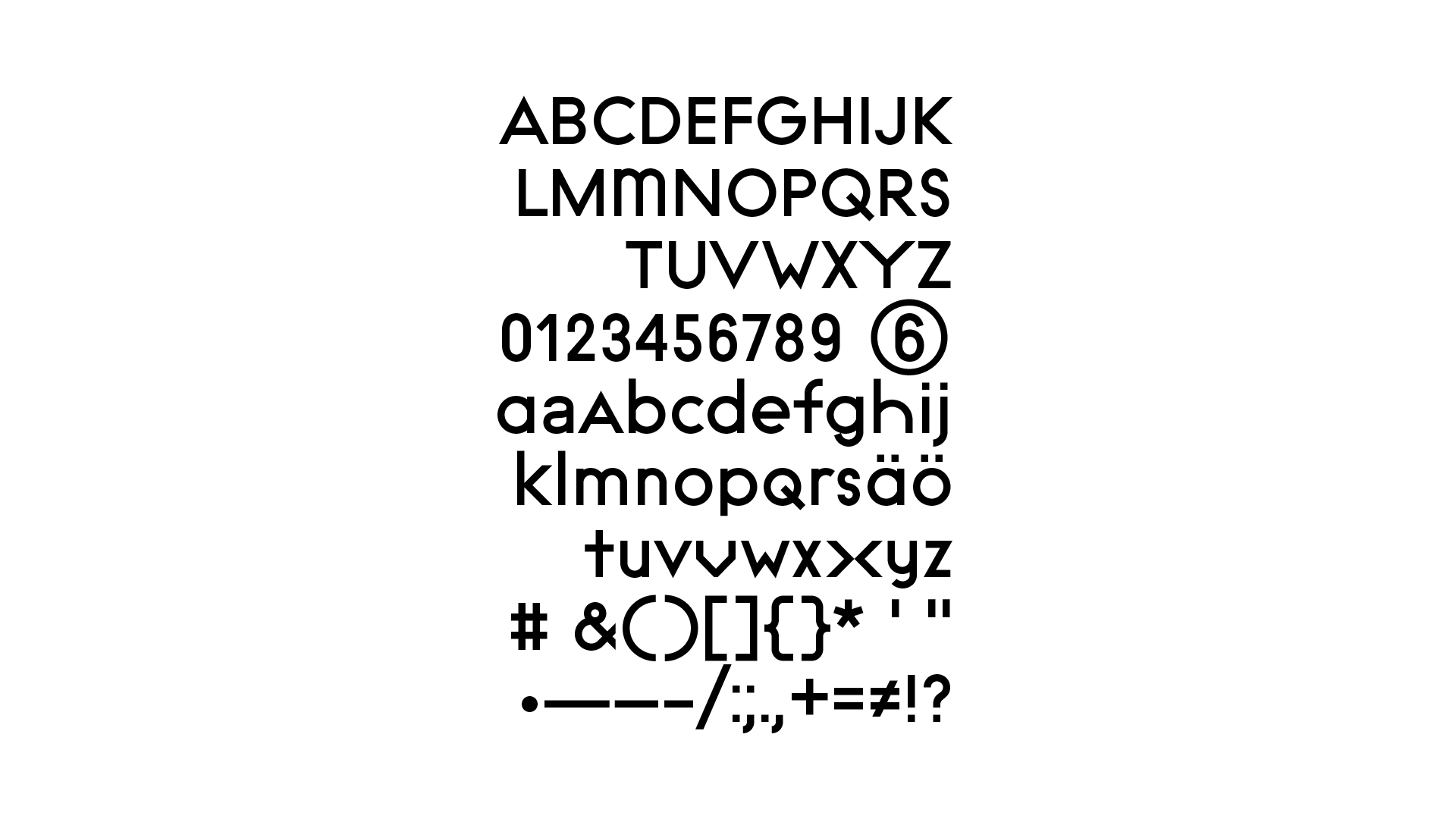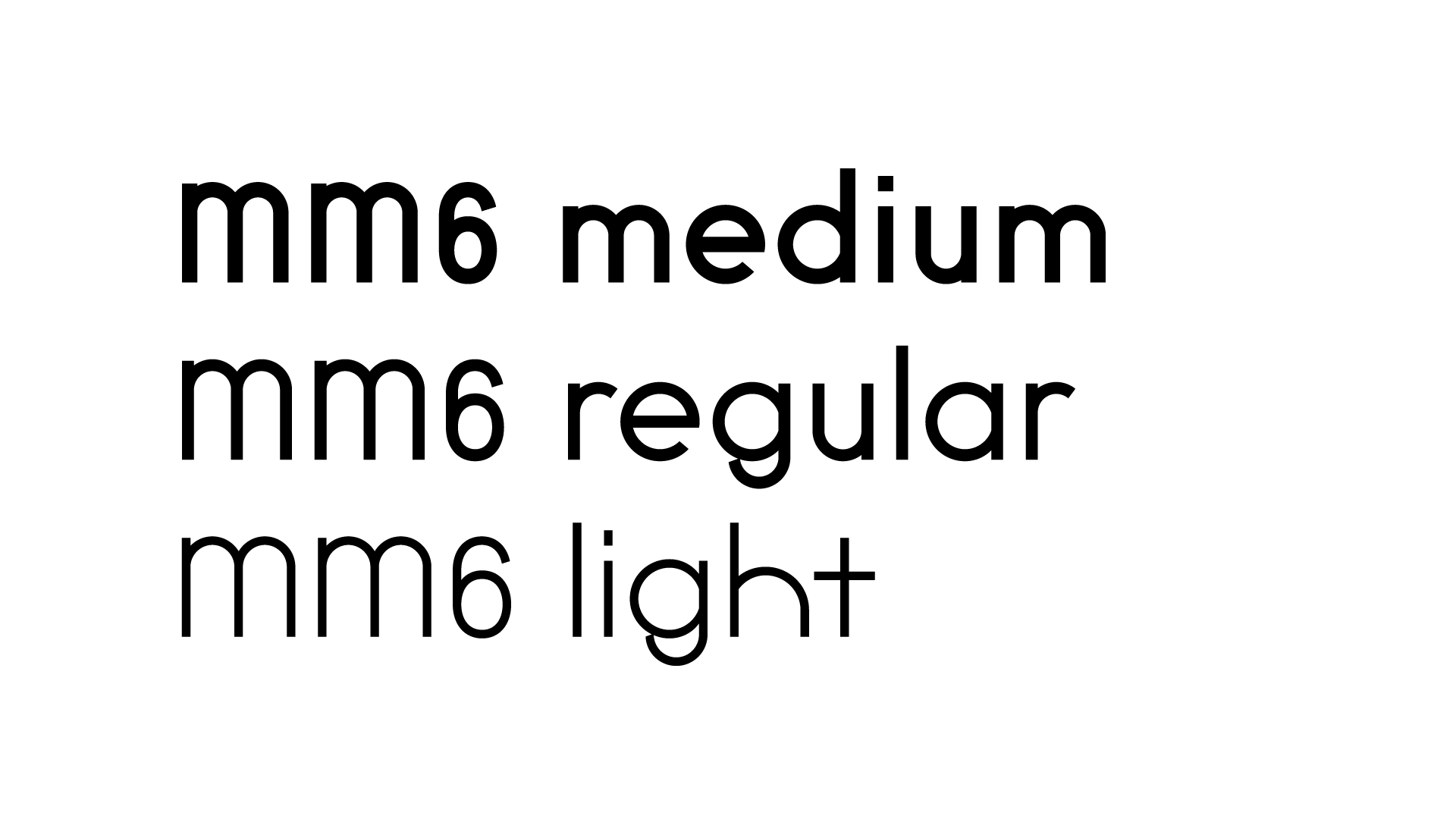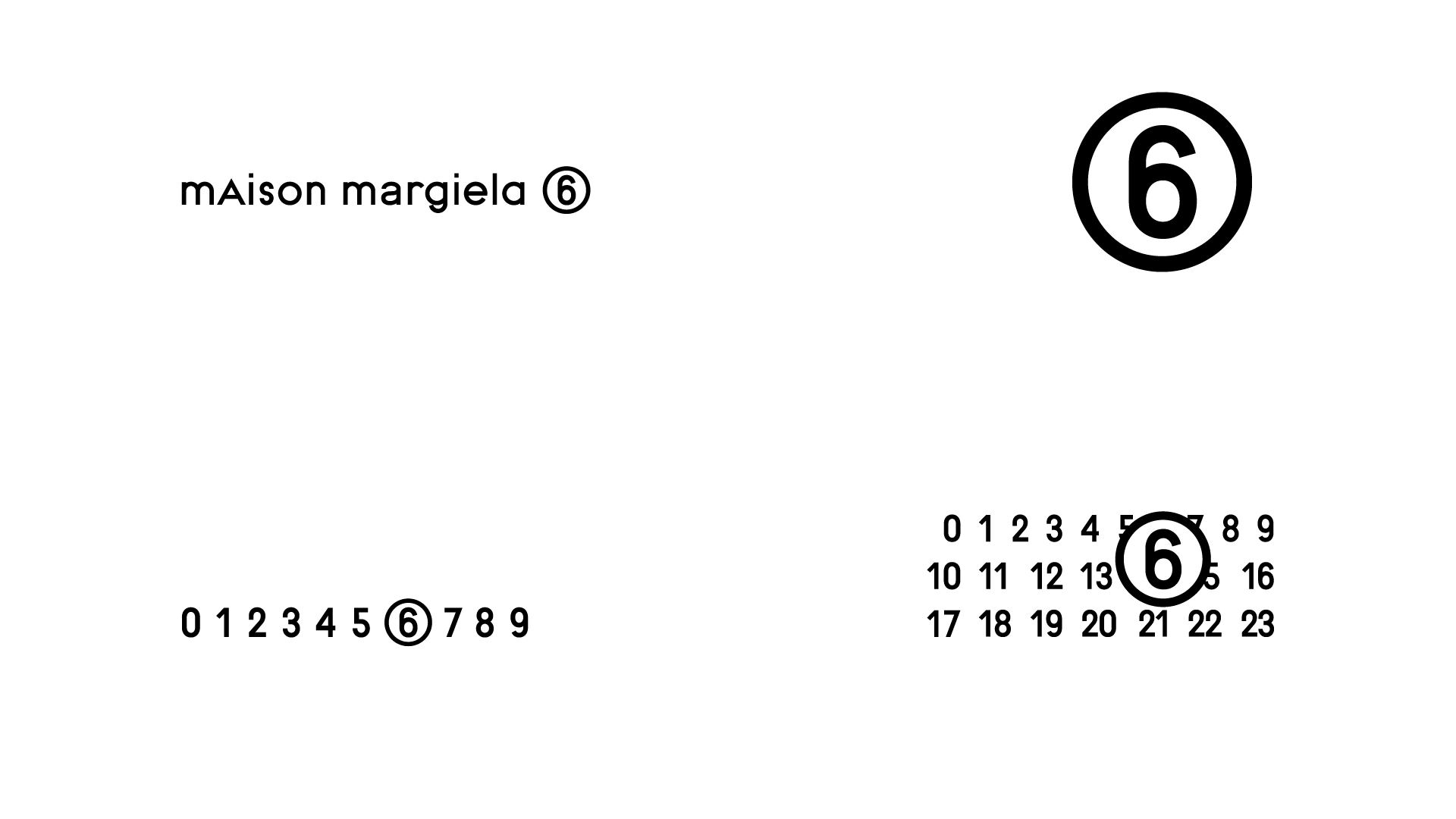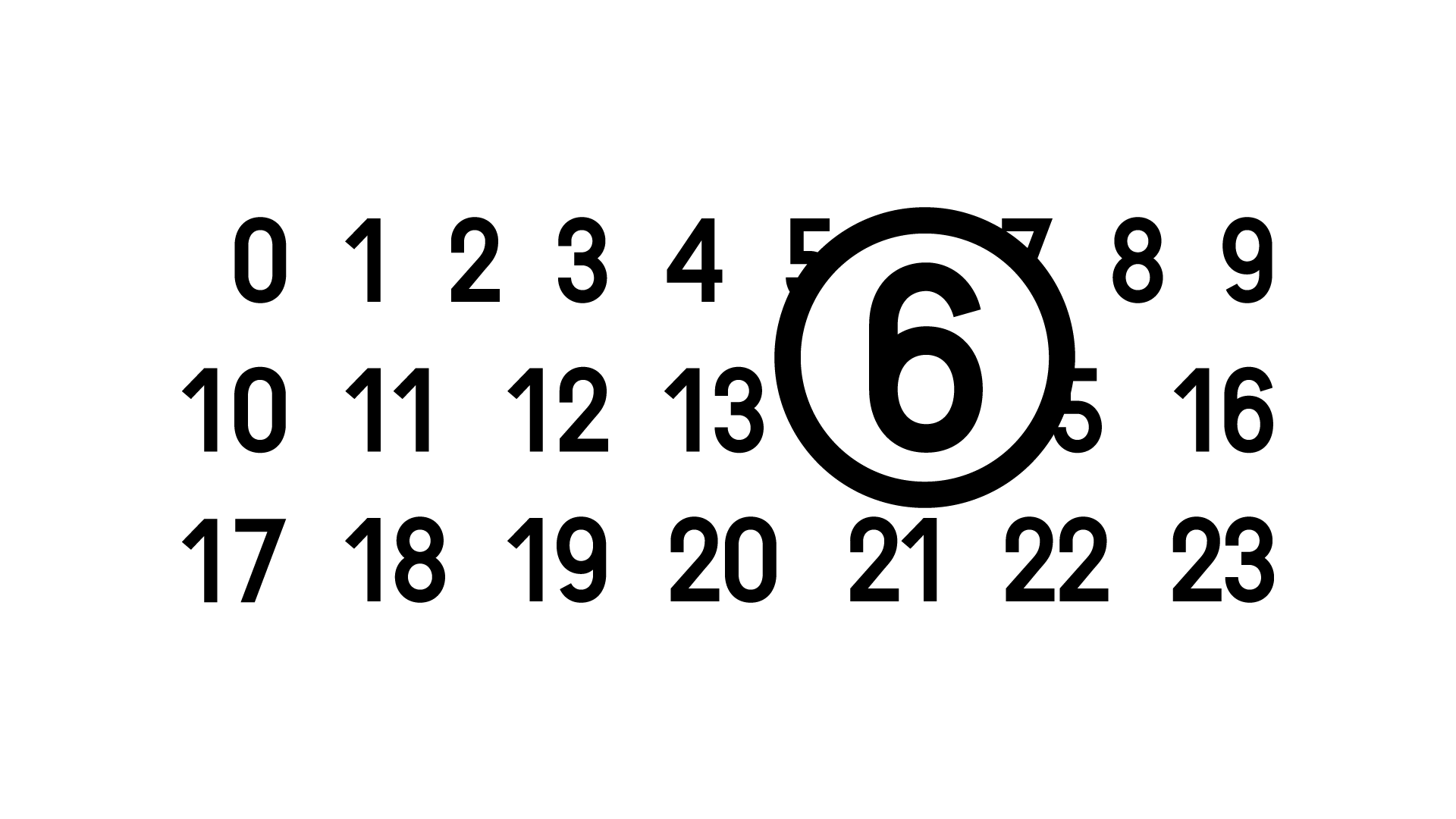
Maison Margiela 6
Drawing inspiration from the deconstructed silhouettes and tactile storytelling of Margiela, we approached the typeface design with a brutalist mindset. Brutalism, like MM6, is about stripping away the unnecessary, exposing the raw structure, and challenging expectations. The resulting geometric forms disregard traditional typographic conventions, creating an unyealding visual vocabulary.
We pay homage to the earliest Martin Margiela catalogues, designed by Åbäke, where type was more than just communication—it was a punk manifesto. Just as those catalogues embraced an unconventional, industrial aesthetic, this typeface channels the same defiance, stripping type to its raw geometry while maintaining a striking presence. The typeface reflects the MM6 ethos: an embrace of the unconventional, a rejection of excess, and a focus on functionality that dares to question beauty. Its bold, monolithic shapes echo the deconstruction inherent in the Maison’s garments, while its precise geometry mirrors the architectural quality of Margiela’s recurring themes. This is not just a typeface; it is an object of disruption. A refusal to blend in. A statement of quiet audacity.
The MM6 commission offered an opportunity to finally complete a long-running idea: expanding Absolution into a full weight range. Though new weights had long been in development, they had never been published — until now. For this version, we developed a new variable axis and selected three precisely calibrated weights for ease of use in the final font. These styles carry the same structural clarity as the original, but each lands with a different voice: the Light reads like a notation, almost hesitant; the Regular is more neutral, a base to build on; and the Bold adds emphasis without shouting. The progression is minimal but intentional — designed to serve both expressive typographic moments and systematic brand work.
The MM6 typeface lives in the space between system and idiosyncrasy. It’s built to function — clear, legible, and adaptable across materials and formats — but carries just enough personality to suggest that someone, somewhere, made decisions by hand. The design resists both neutrality and flourish, instead opting for a kind of purposeful restraint. In its final form, it feels less like a signature and more like a tool sharpened through use — one that fits quietly into the MM6 world, where garments are numbered, tags are exposed, and the construction is always part of the story.